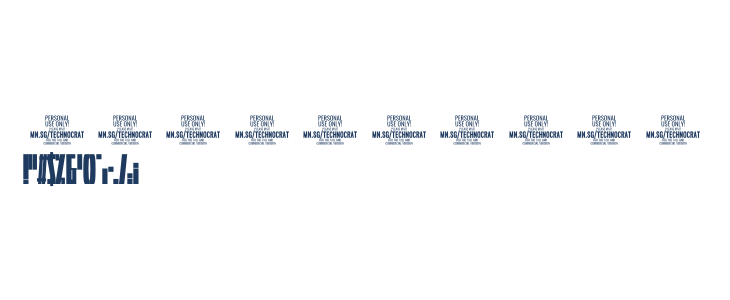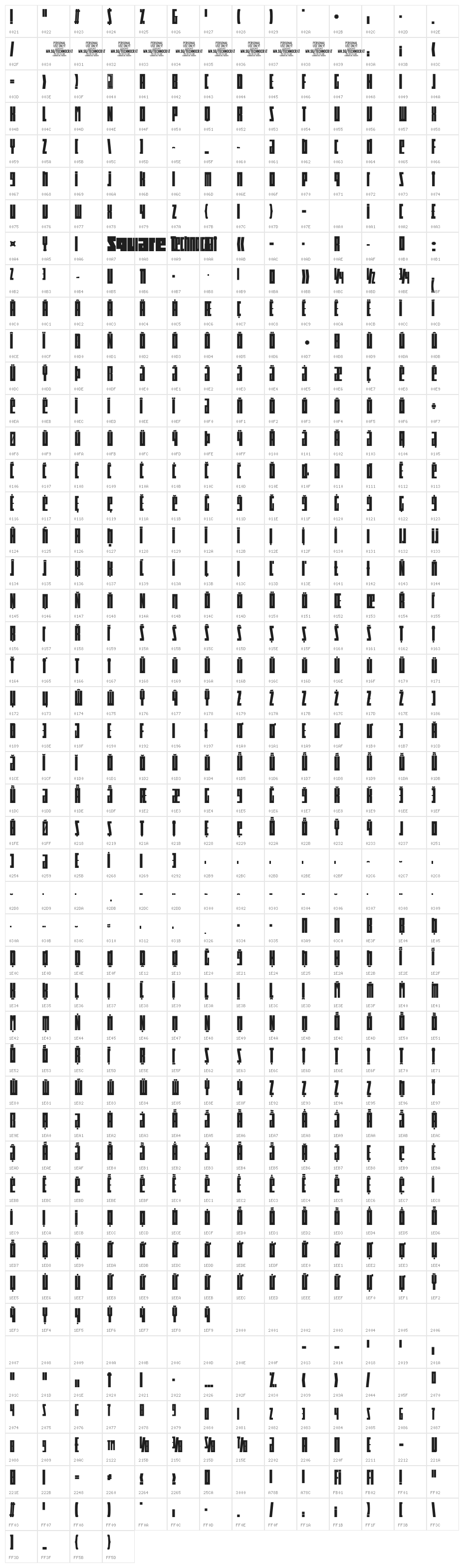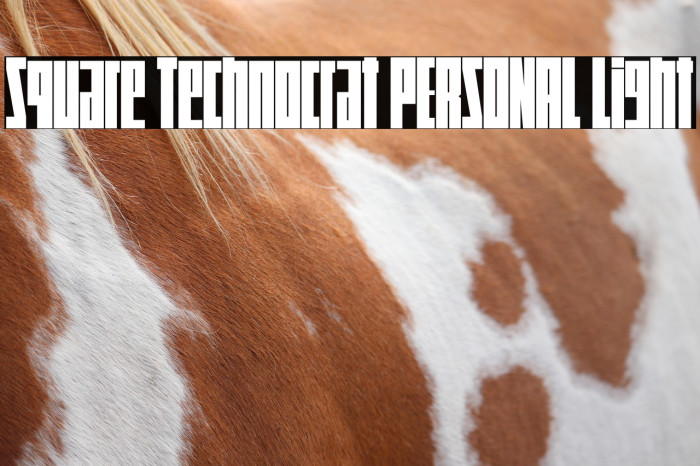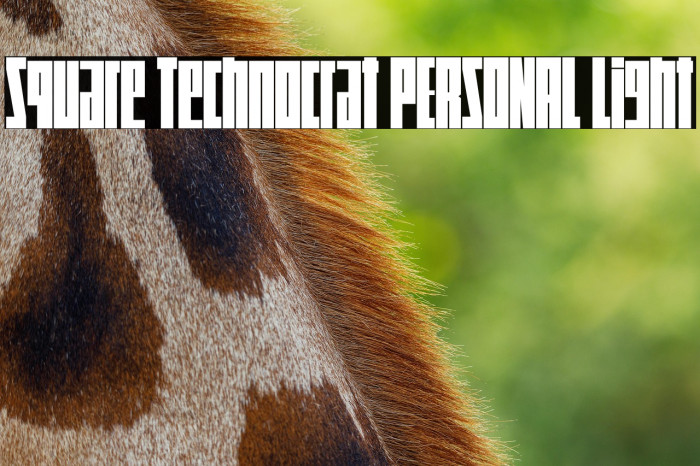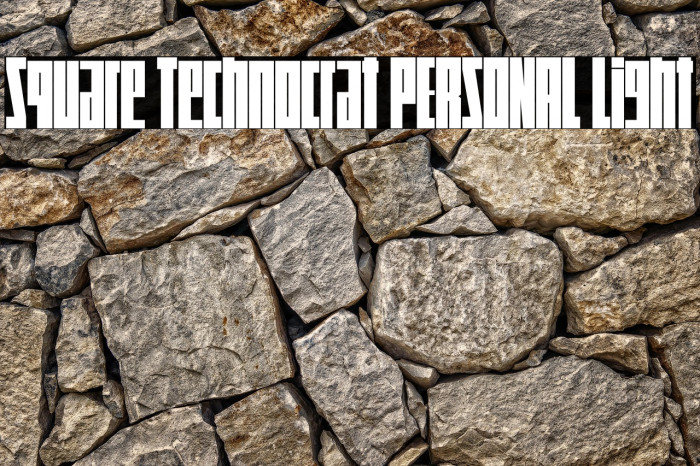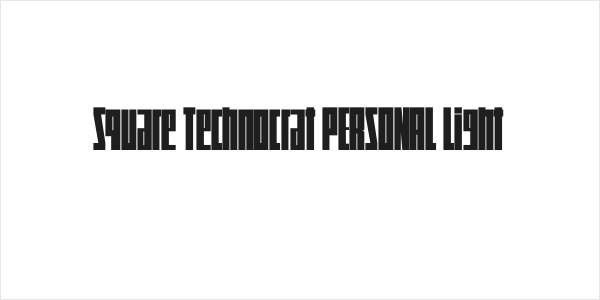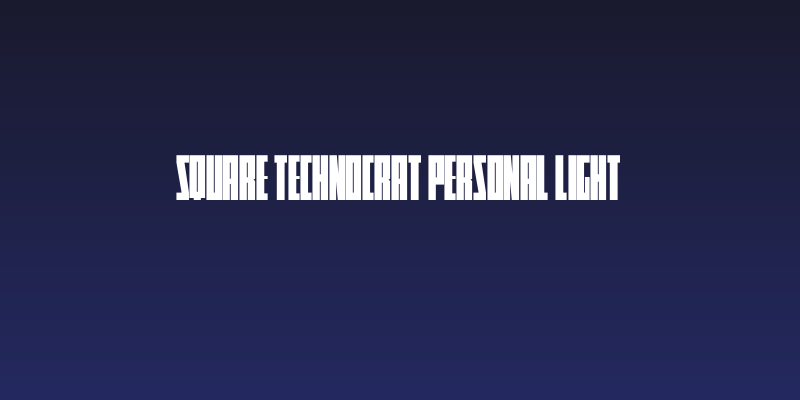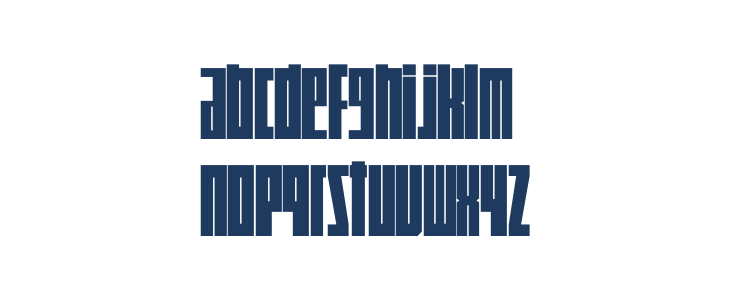
Square Technocrat PERSONAL Light Font
Square Technocrat PERSONAL Light Description
This font features a bold, geometric design with a distinctly modern and futuristic aesthetic. The characters are constructed with sharp angles and straight lines, creating a blocky and robust appearance. The uppercase and lowercase letters maintain a consistent height, contributing to a uniform and cohesive look. The numbers and special characters follow the same design principles, ensuring a seamless integration across different text elements. The font's heavy weight and condensed width make it ideal for impactful and attention-grabbing displays.
| Proposed Projects | Ideal for technology branding, sci-fi themed projects, posters, and video game titles. |